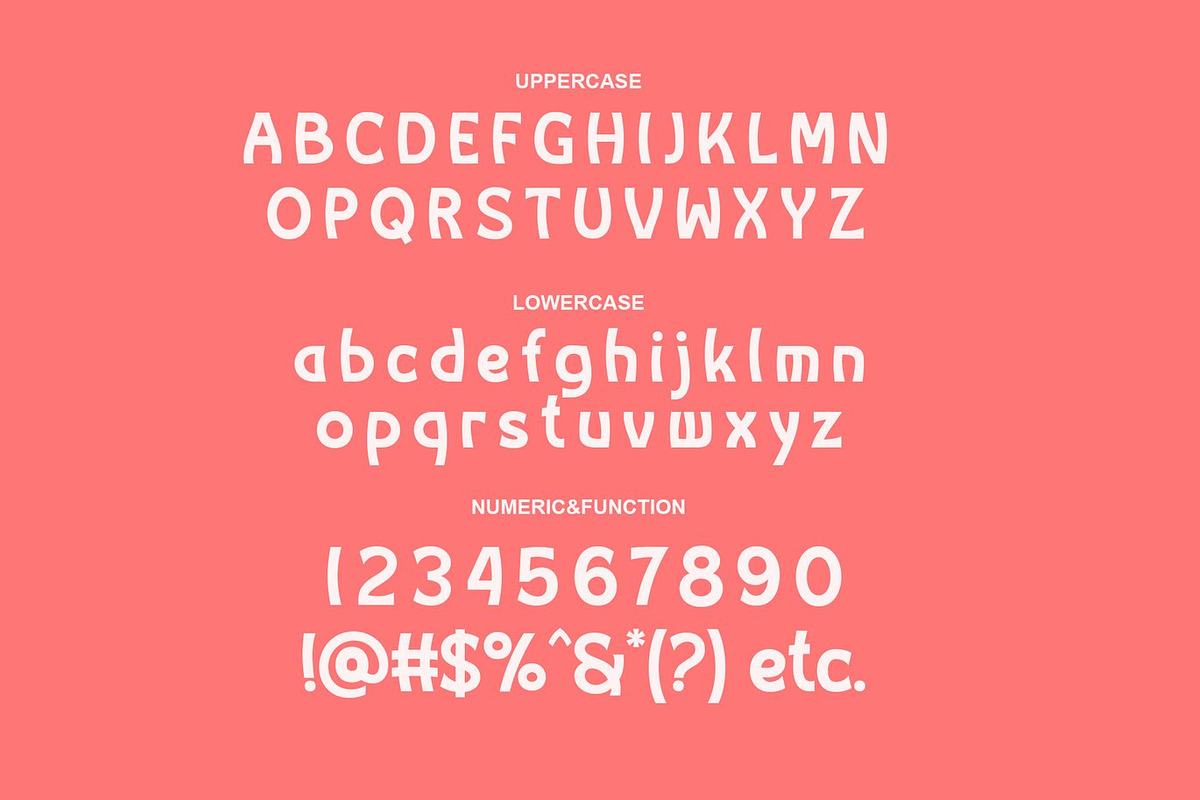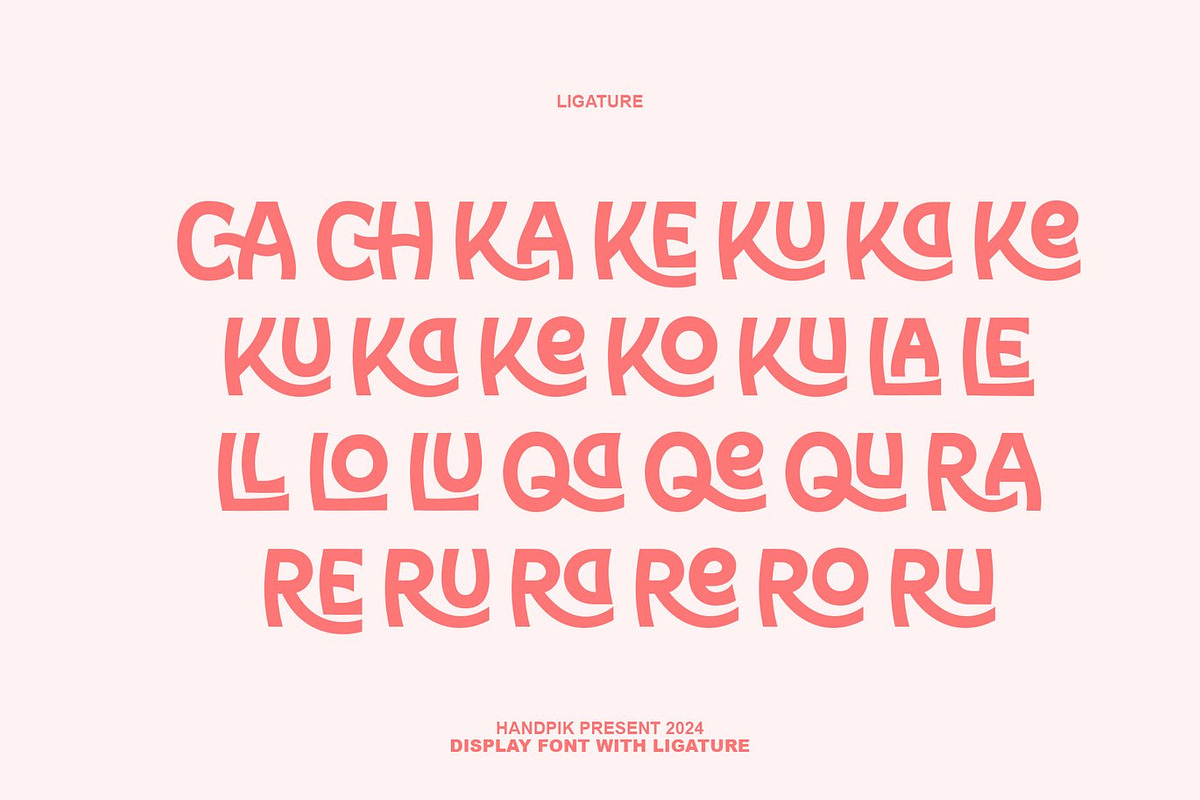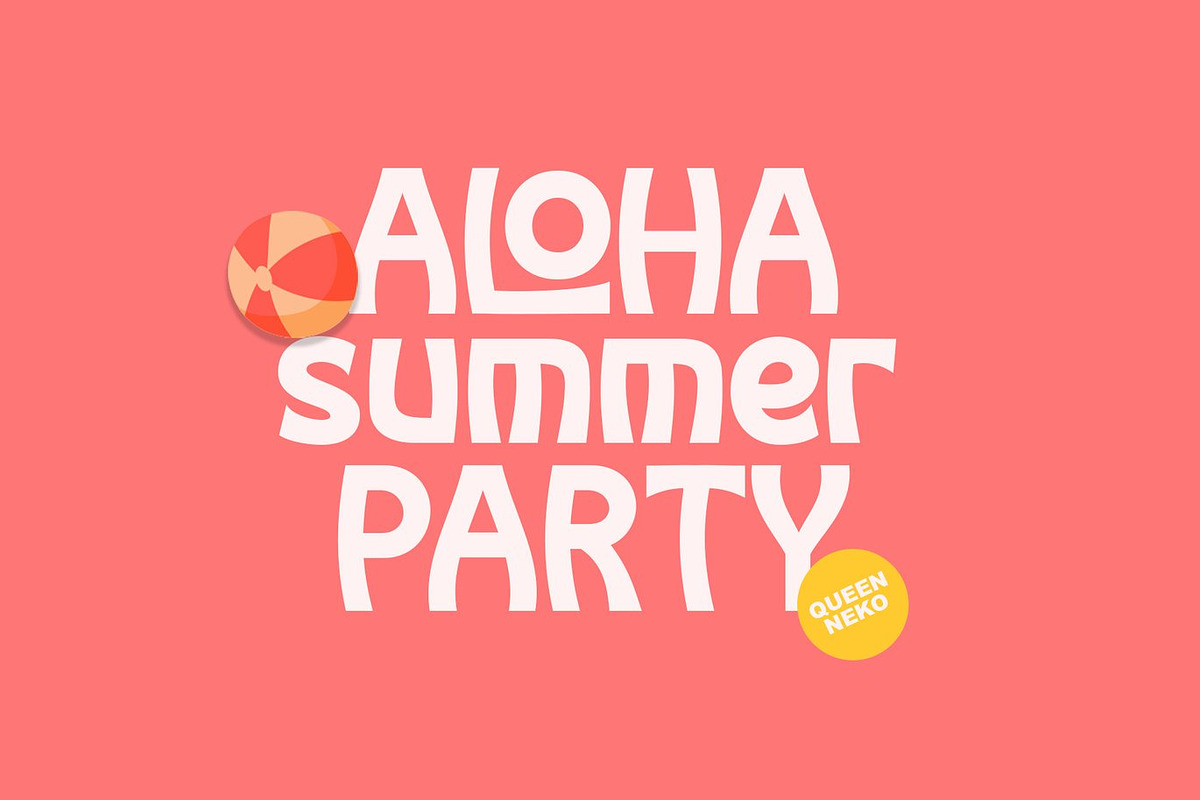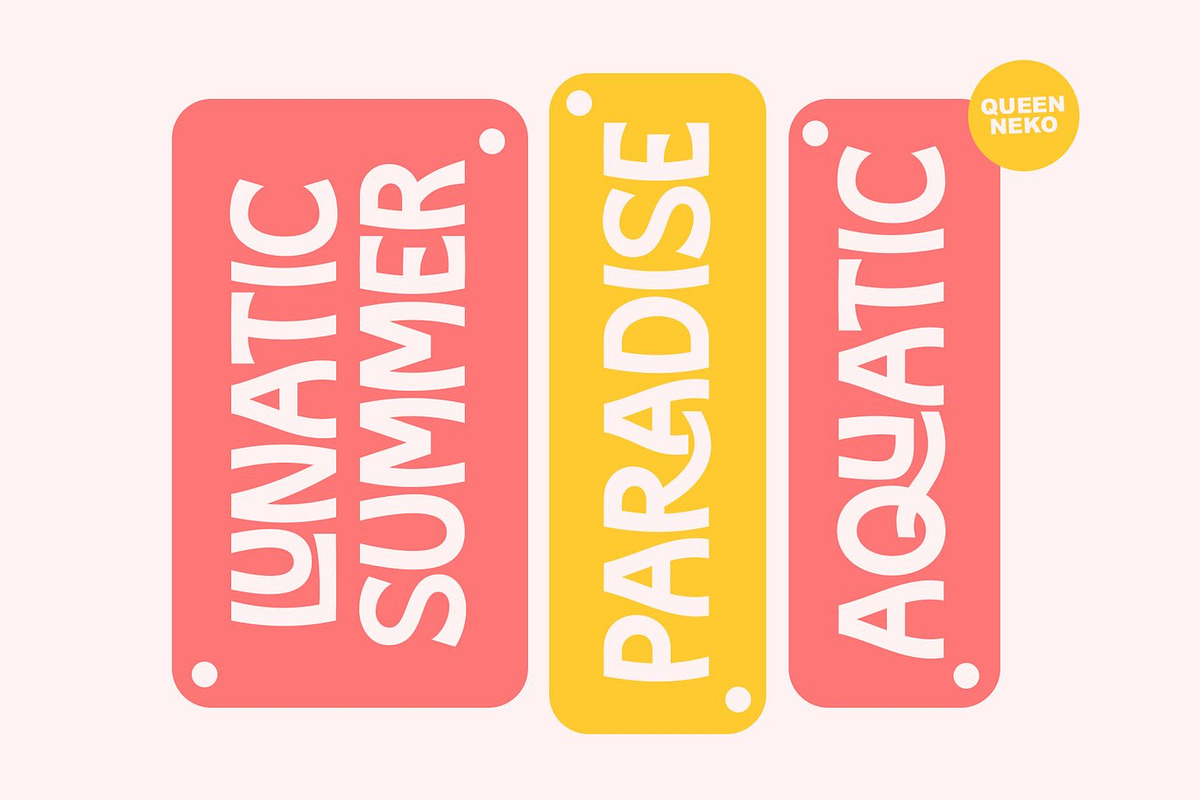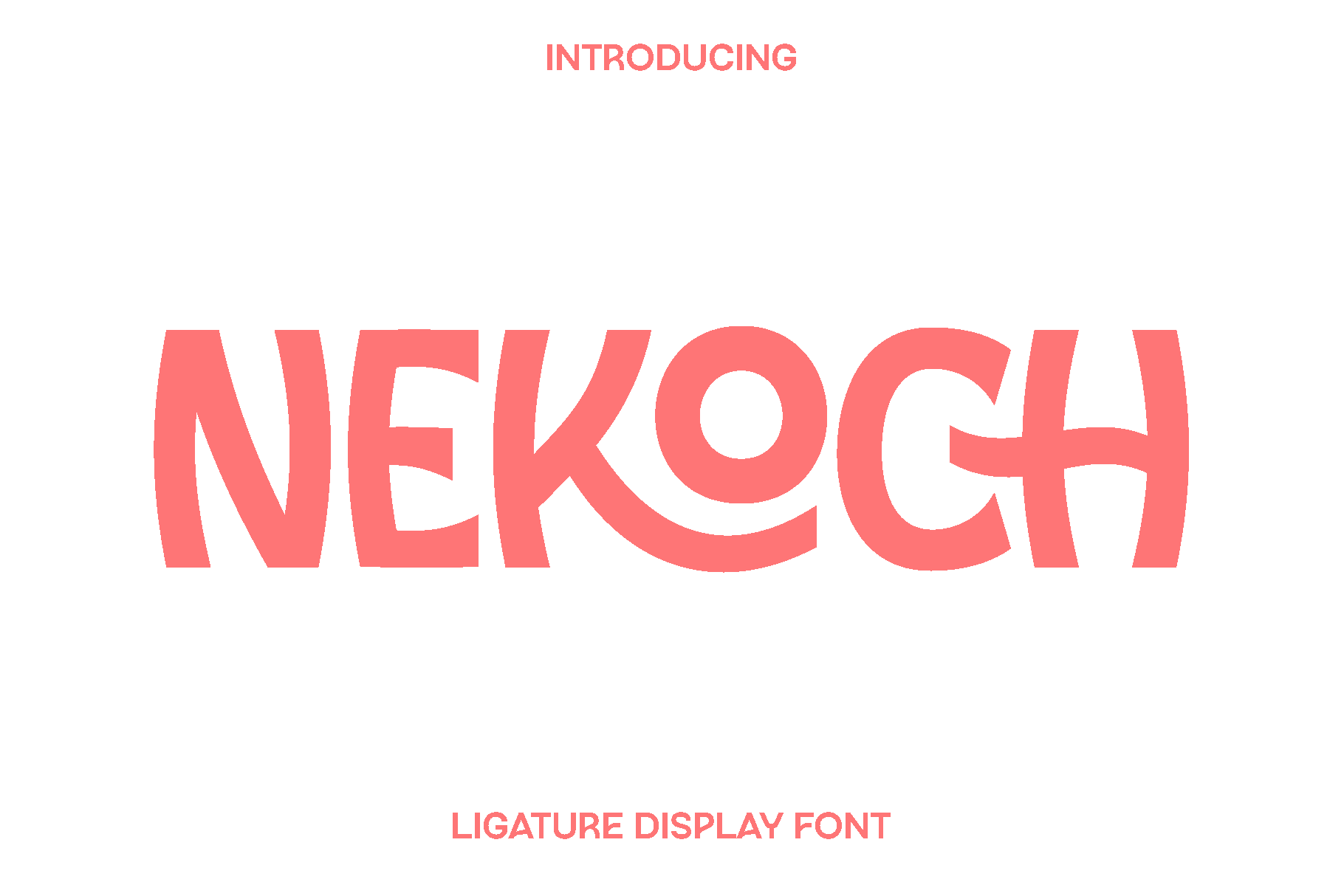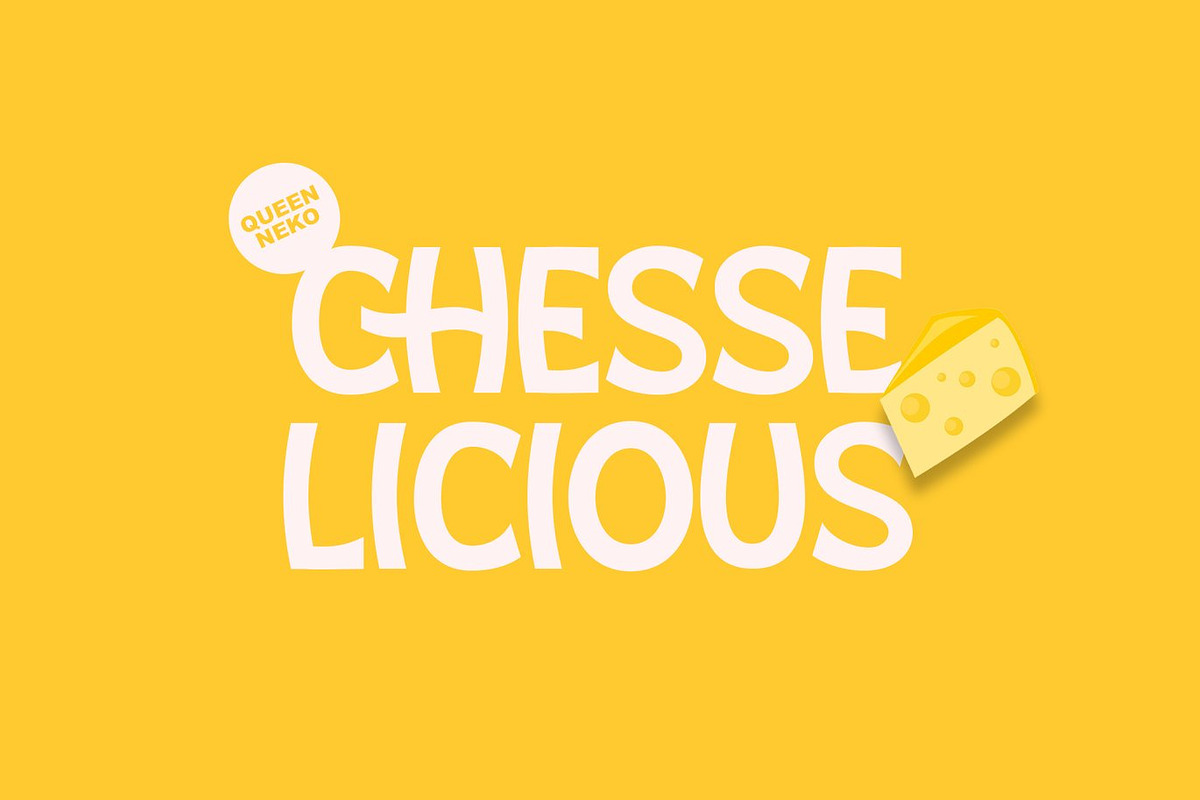
Nekoch - Ligature Display Font
Nekoch is a modern ligature display font designed to bring personality and creativity into your typography. Built with carefully crafted letterforms and stylish ligatures, Nekoch creates smooth and visually engaging connections between characters. This thoughtful design approach gives your text a distinctive rhythm and a contemporary feel that immediately attracts attention.
Inspired by modern branding and editorial design trends, Nekoch balances bold display style with refined details. The ligature combinations enhance the visual flow of words, making titles and headlines look polished and memorable. Each character is designed to work harmoniously with others, allowing designers to create expressive compositions with minimal effort.
Nekoch shines in a wide range of creative projects. It works beautifully for book covers, magazine titles, logos, branding, photography overlays, quotes, blog headers, posters, and advertising campaigns. Its strong display presence ensures that your message stands out while maintaining a clean and stylish appearance across both digital and print media.
With its versatile character set and elegant ligature features, Nekoch gives designers the freedom to experiment and create unique typographic identities. Whether you are building a modern brand, crafting eye catching promotional graphics, or designing editorial layouts, Nekoch delivers a bold yet sophisticated look that elevates your work.
Nekoch Ligature Display Font Features:
• Uppercase and lowercase characters
• Stylish ligature combinations
• Numerals and functional punctuation
• Multilingual support
• OpenType features